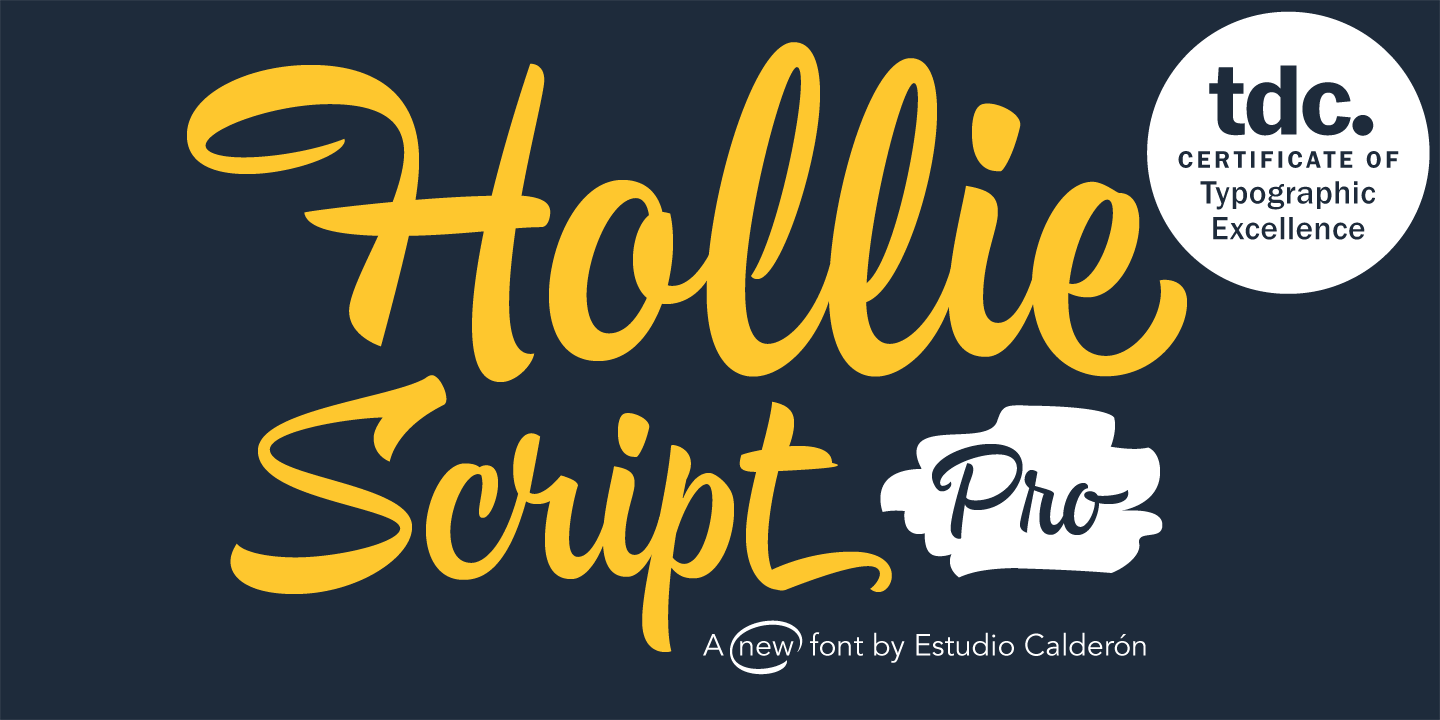
Hollie Script Pro Font is perfect for professional calligraphy services, luxury wedding invitations, high-end fashion brand logos, elegant greeting card designs, premium stationery collections, sophisticated beauty salon branding, upscale jewelry packaging, exclusive boutique signage, refined script workshops, and any project requiring professional elegance with masterful calligraphic artistry and premium handwritten sophistication.
What makes Hollie Script Pro Font exciting is its professional mastery and calligraphic excellence that embodies the refined artistry of expert hand-lettering and the sophisticated beauty of premium script design. The typeface features flawlessly crafted letterforms with elegant flourishes and professional details that evoke the precision of master calligraphers and the luxurious appeal of bespoke handwritten correspondence. Its professional character design speaks to audiences who appreciate artistic excellence, sophisticated craftsmanship, and the enduring elegance of premium calligraphic tradition, making it perfect for luxury brands seeking to communicate refinement, professional artistry, and the distinguished sophistication of expert calligraphy that transforms written communication into works of art.
Hollie Script Pro Font family includes regular and bold weights with complete character sets featuring uppercase and lowercase letters, professional numerals, sophisticated punctuation marks, and calligraphic decorative elements. The typeface incorporates advanced script techniques and professional calligraphy standards that enhance its masterful appearance while maintaining excellent readability across all luxury applications and premium design projects.
Whether you're creating luxury brand identity, designing professional stationery, or developing elegant marketing materials, Hollie Script Pro Font Free Download provides the perfect typographic foundation that celebrates calligraphic mastery and professional elegance. The font's sophisticated appeal and professional character make it particularly effective for luxury services, wedding professionals, and premium lifestyle brands. Its elegant aesthetics translate beautifully across luxury signage, premium publications, and digital platforms, ensuring your brand communicates the kind of authentic sophistication and calligraphic excellence that resonates with discerning clients seeking the finest expressions of professional design and artistic craftsmanship.